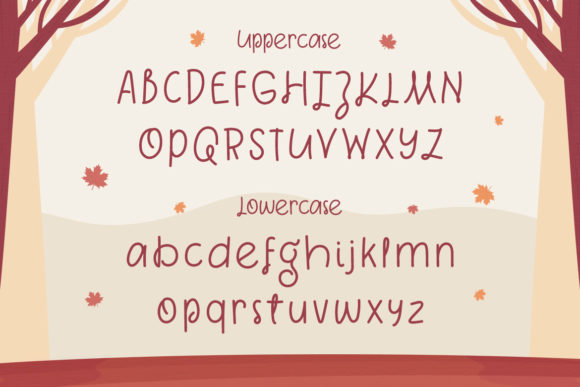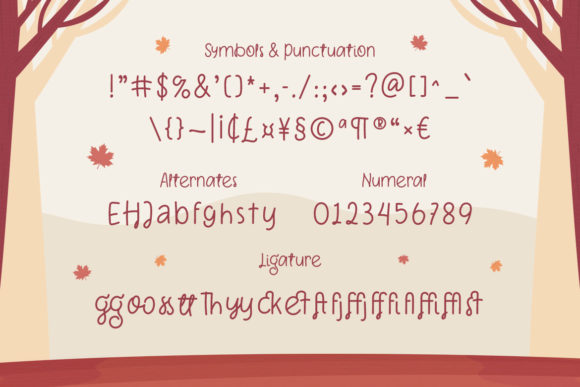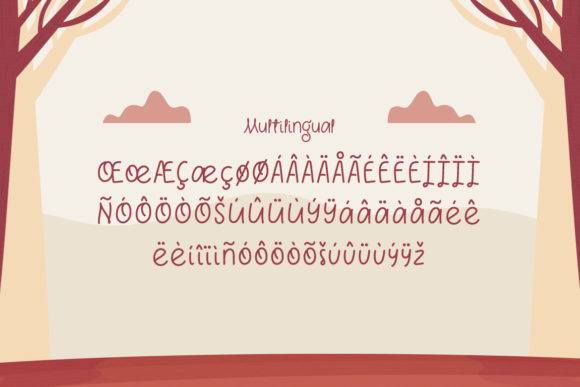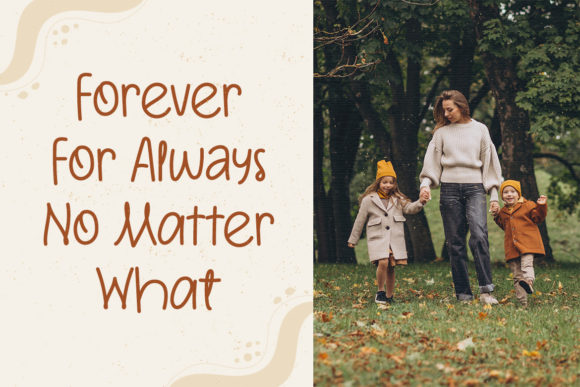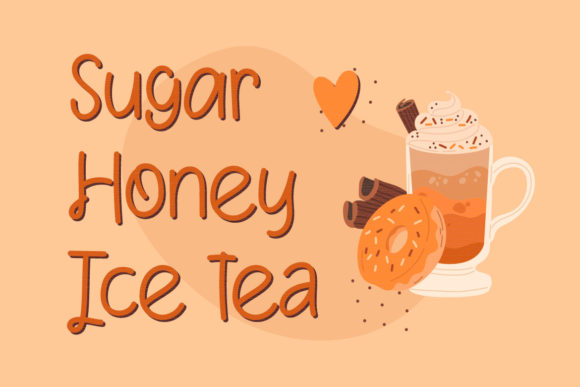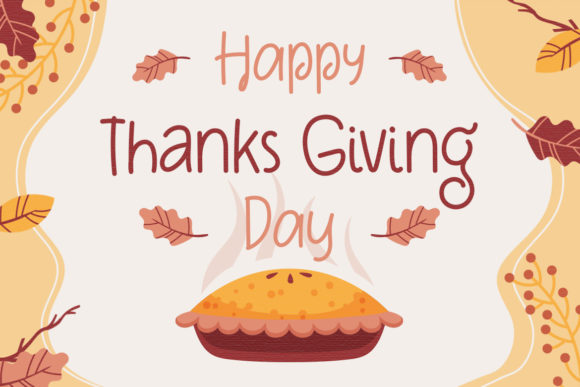
Discover the Charm of Grane Font: A Cute and Simple Handwritten Font for Designers and Crafters
Are you a designer or crafter looking for a font that adds a personal touch to your creations? Look no further than Grane Font, a cute and simple lettered handwritten font that’s perfect for chalkboard quotes, teaching materials, and more. With its authentic look and feel, Grane Font is sure to bring a realistic and charming vibe to your designs.
What is Grane Font?
Grane Font is a carefully crafted handwritten font that’s designed to mimic the look of chalkboard writing. Its simple and cute lettering style makes it perfect for a variety of design projects, from educational materials to social media graphics. Whether you’re a teacher, designer, or crafter, Grane Font is a versatile font that can be used to add a personal touch to your creations.
Features of Grane Font
- Cute and Simple Design: Grane Font features a cute and simple design that’s perfect for creating visually appealing designs. Its handwritten style is easy to read and adds a personal touch to any project.
- Authentic Look: Grane Font has an authentic look that mimics the look of chalkboard writing. Its imperfections and irregularities give it a realistic feel that’s perfect for creating designs that look like they were written on a chalkboard.
- Versatile: Grane Font is a versatile font that can be used for a variety of design projects, from educational materials to social media graphics.
- Easy to Read: Despite its handwritten style, Grane Font is easy to read and understand. Its clear and simple lettering makes it perfect for creating designs that need to be read and understood quickly.
Uses of Grane Font
Grane Font is a versatile font that can be used for a variety of design projects. Here are some of the most popular uses of Grane Font:
- Chalkboard Quotes: Grane Font is perfect for creating chalkboard quotes that look like they were written on a chalkboard. Its authentic look and feel make it a popular choice for designers and crafters who want to create realistic chalkboard quotes.
- Teaching Materials: Grane Font is a popular choice for teachers who want to create educational materials that are visually appealing and easy to read. Its clear and simple lettering makes it perfect for creating worksheets, presentations, and other educational materials.
- Social Media Graphics: Grane Font can be used to create social media graphics that are visually appealing and engaging. Its cute and simple design makes it perfect for creating graphics that need to be read and understood quickly.
- Crafting Projects: Grane Font is a popular choice for crafters who want to add a personal touch to their projects. Its authentic look and feel make it perfect for creating signs, banners, and other crafting projects.
Tips for Using Grane Font
Here are some tips for using Grane Font in your design projects:
- Use it for Headlines and Titles: Grane Font is perfect for creating headlines and titles that need to be visually appealing and easy to read. Its clear and simple lettering makes it perfect for creating titles that need to be read and understood quickly.
- Mix it with Other Fonts: Grane Font can be mixed with other fonts to create visually appealing designs. Try pairing it with a sans-serif font to create a contrasting look that’s easy to read.
- Use it for Body Text: Grane Font can be used for body text to add a personal touch to your designs. Its clear and simple lettering makes it easy to read and understand.
Grane Font is a cute and simple lettered handwritten font that’s perfect for designers and crafters who want to add a personal touch to their creations. Its authentic look and feel make it perfect for creating chalkboard quotes, teaching materials, and more. With its versatility and ease of use, Grane Font is a popular choice for designers and crafters who want to create visually appealing designs that are easy to read and understand.
Whether you’re a teacher, designer, or crafter, Grane Font is a font that’s sure to bring a charming and realistic vibe to your designs. So why not give it a try and see how it can enhance your design projects?